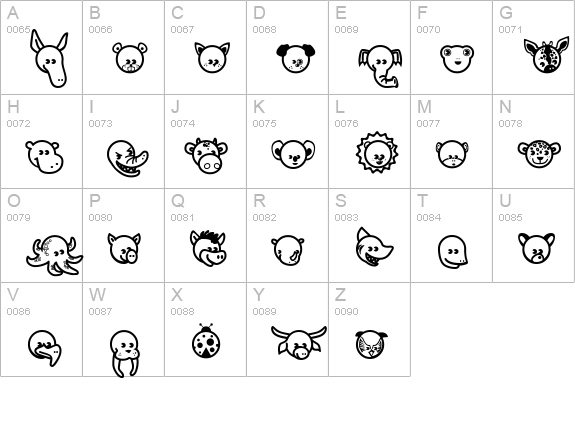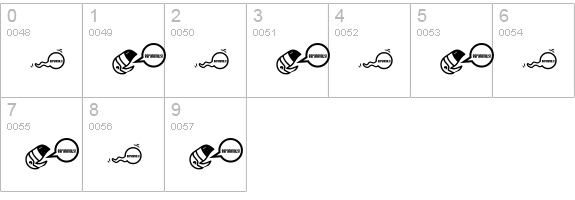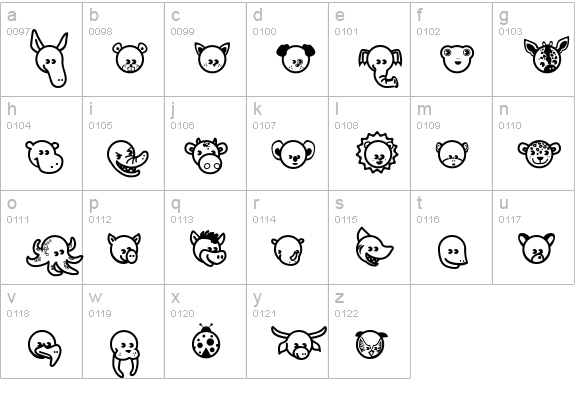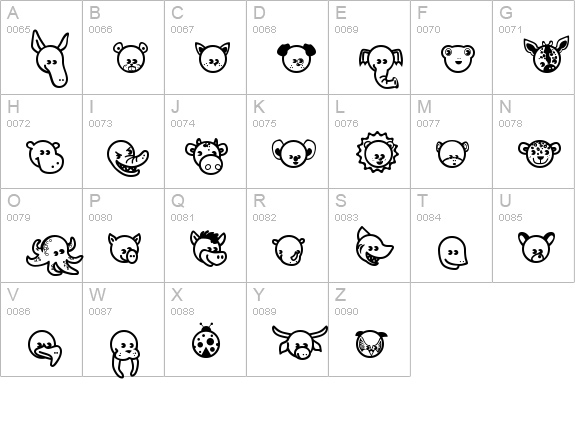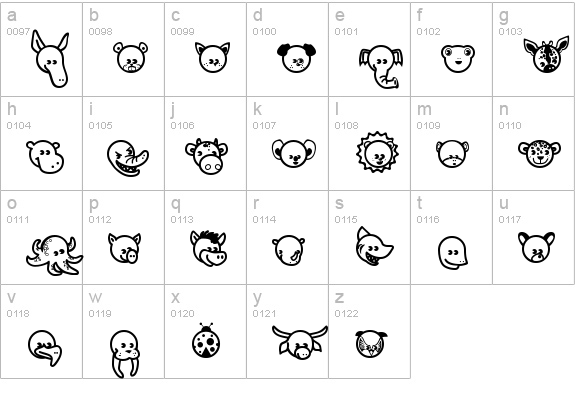
Garanimals font is a playful and whimsical typeface that is perfect for adding a touch of fun to your designs. With its friendly and approachable style, Garanimals font is sure to bring a smile to anyone who sees it. This versatile font is great for a variety of projects, from children's books to party invitations. The best part is that Garanimals font is completely free to download at FontsMarket.com. So go ahead and add a dash of charm to your next design project with Garanimals font!